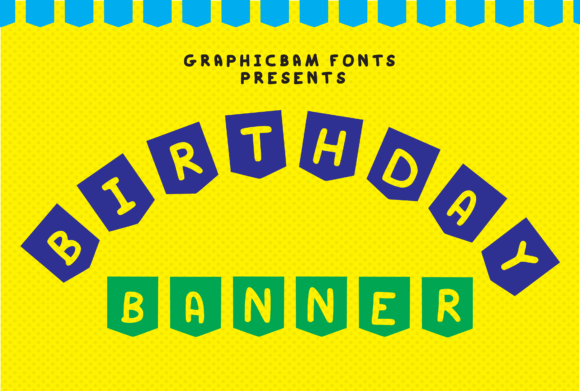
Birthday Banner Font: The Perfect Addition to Your Festive Designs
Are you looking for a font that can add a touch of festivity and cuteness to your designs? Look no further than the Birthday Banner Font! This adorable font is specifically designed with a festive theme, making it perfect for various creative projects, from cartoon-related designs to children’s games and more. In this article, we’ll explore the features and benefits of the Birthday Banner Font and why it’s an excellent choice for your design needs.
What is Birthday Banner Font?
Birthday Banner Font is a cute decorative font that boasts a festive theme. Its playful and charming design makes it an ideal choice for projects that require a lighthearted and fun touch. The font’s unique style is reminiscent of birthday celebrations, making it perfect for designs related to birthdays, parties, and other festive occasions.
Key Features of Birthday Banner Font
- Festive Theme: The font’s design is centered around a festive theme, making it perfect for birthday parties, celebrations, and other joyful occasions.
- Cute and Playful: The font’s playful and charming design makes it an excellent choice for cartoon-related designs, children’s games, and other projects that require a lighthearted touch.
- Decorative: Birthday Banner Font is a decorative font that can add a touch of elegance and sophistication to your designs.
- Versatile: The font can be used for various creative projects, from digital designs to print materials.
Why Choose Birthday Banner Font?
There are several reasons why Birthday Banner Font stands out from other fonts. Here are a few:
Reasons to Choose Birthday Banner Font
- Unique Design: The font’s unique design makes it an excellent choice for designers looking for something fresh and exciting.
- Easy to Read: Despite its decorative nature, Birthday Banner Font is easy to read, making it perfect for designs that require a clear and concise message.
- Customizable: The font can be customized to fit your design needs, allowing you to adjust the size, color, and style to match your brand.
- Time-Saving: With Birthday Banner Font, you can save time and effort in creating your designs from scratch.
Use Cases for Birthday Banner Font
Birthday Banner Font is a versatile font that can be used for various creative projects. Here are some use cases:
Use Cases for Birthday Banner Font
- Cartoon-Related Designs: The font’s playful design makes it perfect for cartoon-related designs, such as character designs, animations, and comics.
- Children’s Games: Birthday Banner Font can add a fun and playful touch to children’s games, making them more engaging and enjoyable.
- Birthday Parties: The font’s festive theme makes it perfect for birthday party designs, such as invitations, banners, and decorations.
- Digital Designs: Birthday Banner Font can be used for various digital designs, such as social media graphics, blog posts, and website headers.
Tips for Using Birthday Banner Font
Here are some tips for using Birthday Banner Font effectively:
Tips for Using Birthday Banner Font
- Choose the Right Size: Ensure that the font size is appropriate for your design. You can adjust the size to fit your needs.
- Experiment with Colors: Try out different colors to match your brand or design theme. You can also use the font’s color to add emphasis to certain words or phrases.
- Mix and Match: Don’t be afraid to mix and match Birthday Banner Font with other fonts to create a unique and visually appealing design.
- Keep it Simple: While Birthday Banner Font is decorative, it’s essential to keep your design simple and easy to read.
In conclusion, Birthday Banner Font is an excellent choice for designers looking for a festive and playful font to add a touch of cuteness to their designs. With its unique design, ease of use, and versatility, this font is perfect for various creative projects. Whether you’re designing for cartoon-related projects, children’s games, or birthday parties, Birthday Banner Font is sure to impress. So why not give it a try and see how it can elevate your designs?